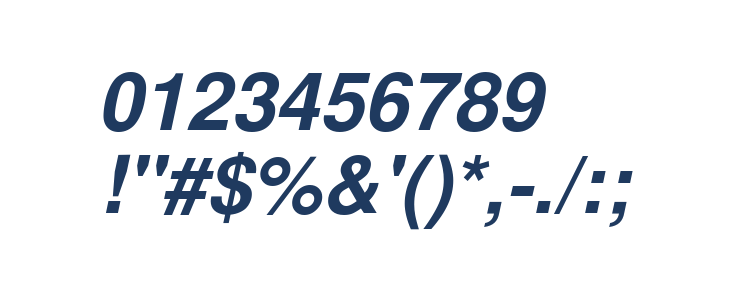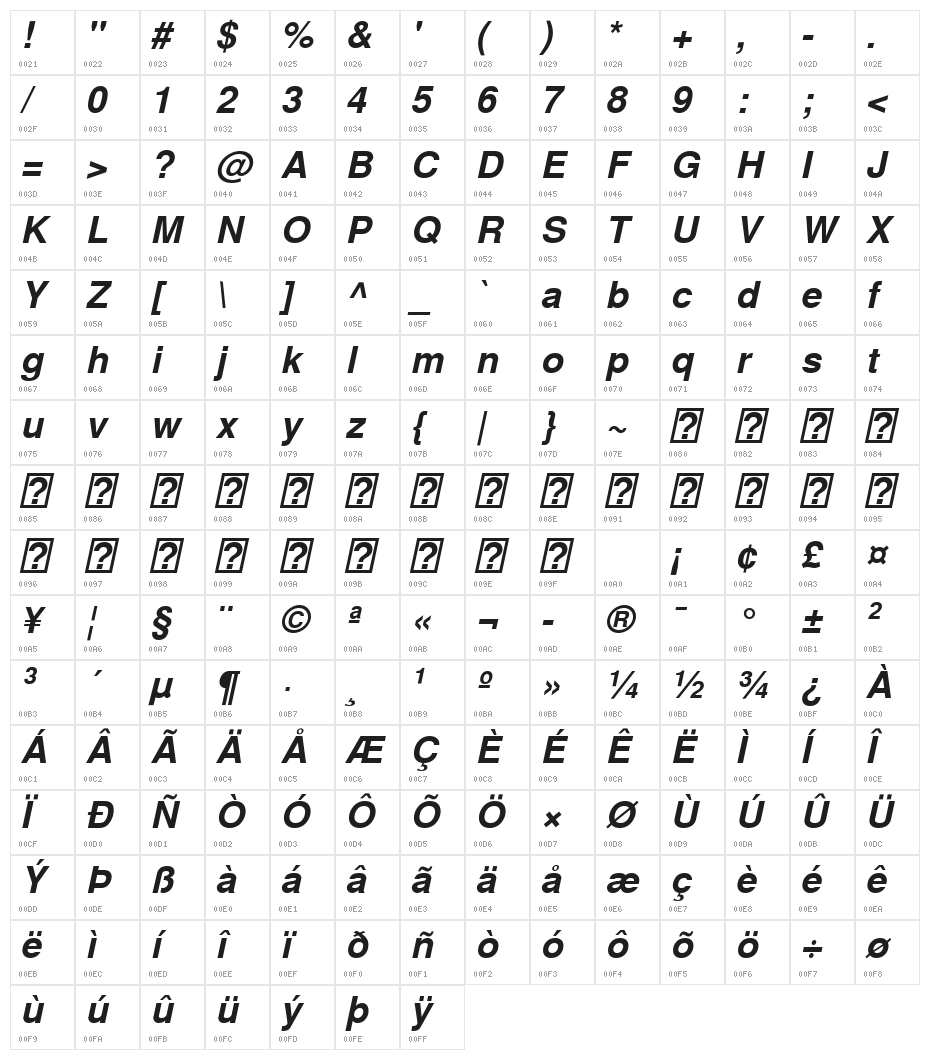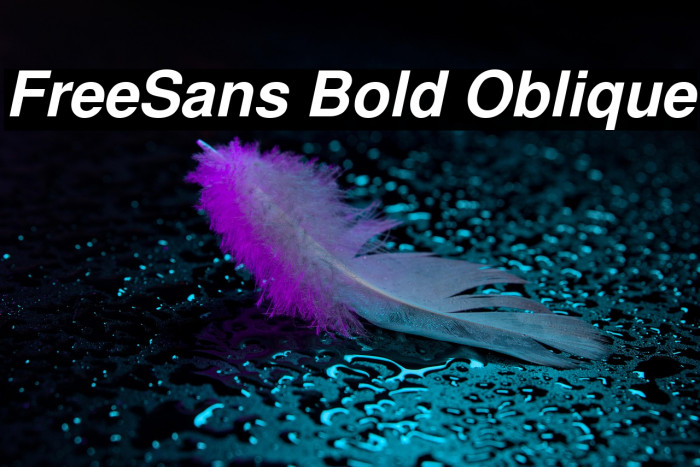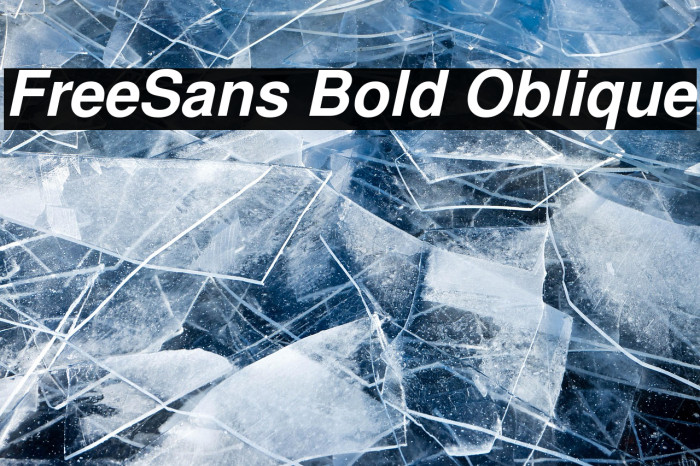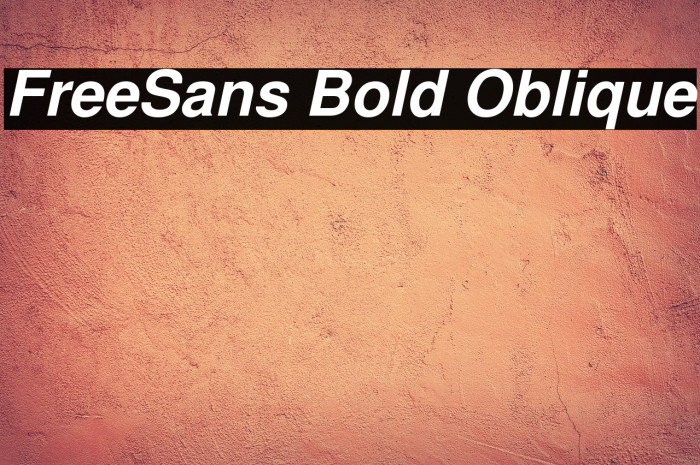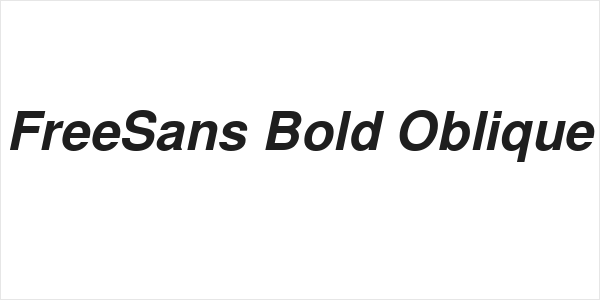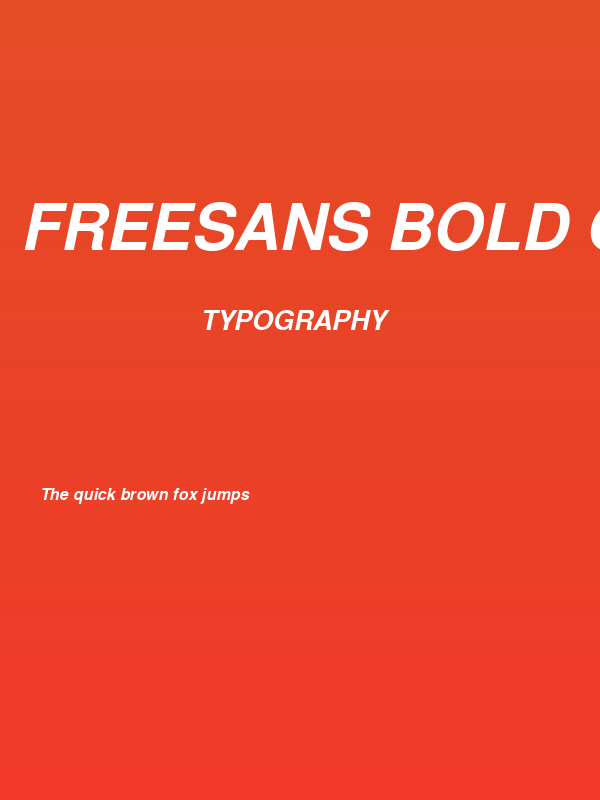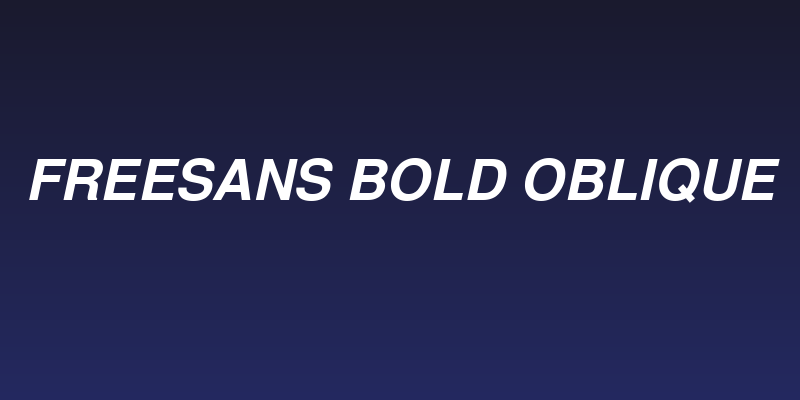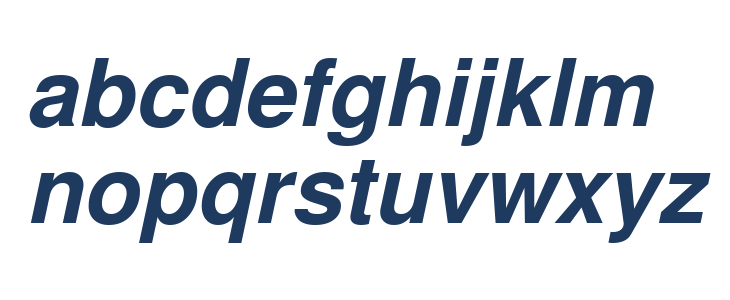
FreeSans Bold Oblique Font
FreeSans Bold Oblique Description
This font features a bold and oblique style, characterized by its strong and assertive presence. The letters are slightly slanted, giving a dynamic and forward-moving appearance. The strokes are thick and uniform, contributing to a robust and impactful look. The font maintains a clean and modern aesthetic, with smooth curves and sharp edges that enhance readability. It is versatile, suitable for various design contexts where a bold statement is needed. The spacing between characters is balanced, ensuring clarity and legibility even in dense text settings.
| Proposed Projects | Ideal for branding, advertising, headlines, and any project requiring a strong visual impact. |